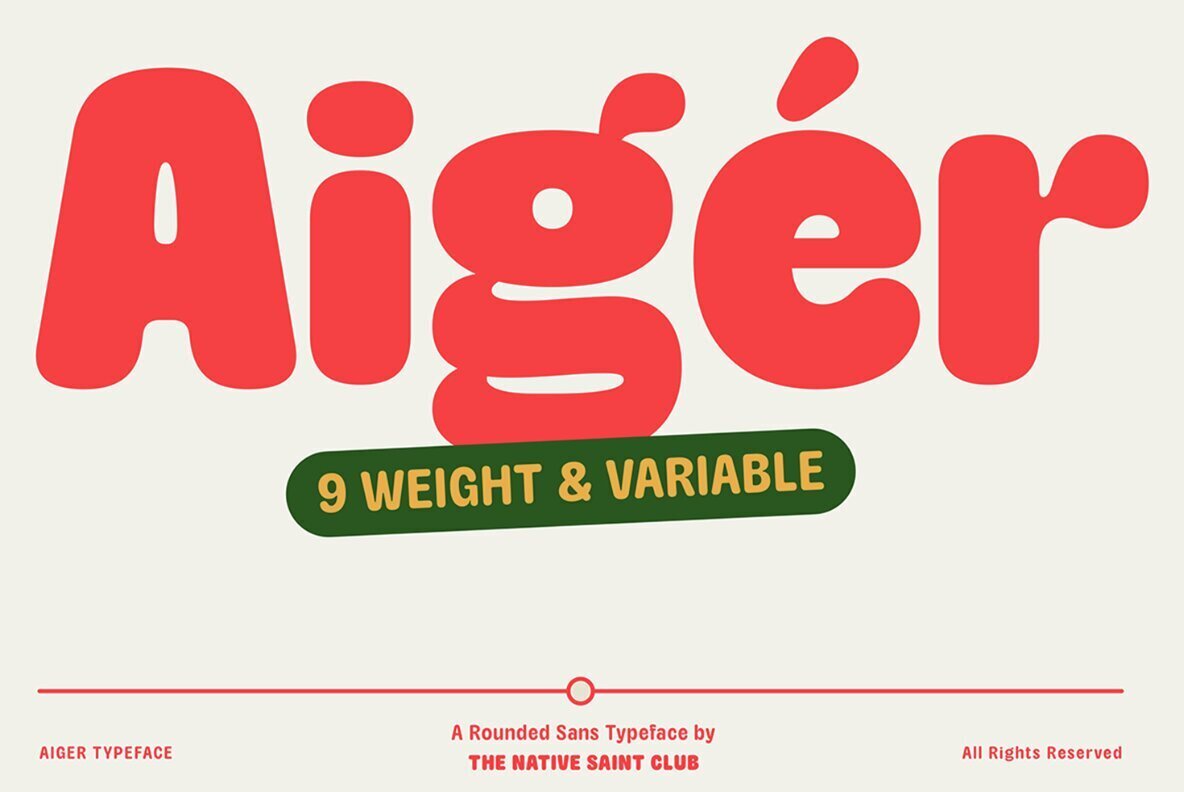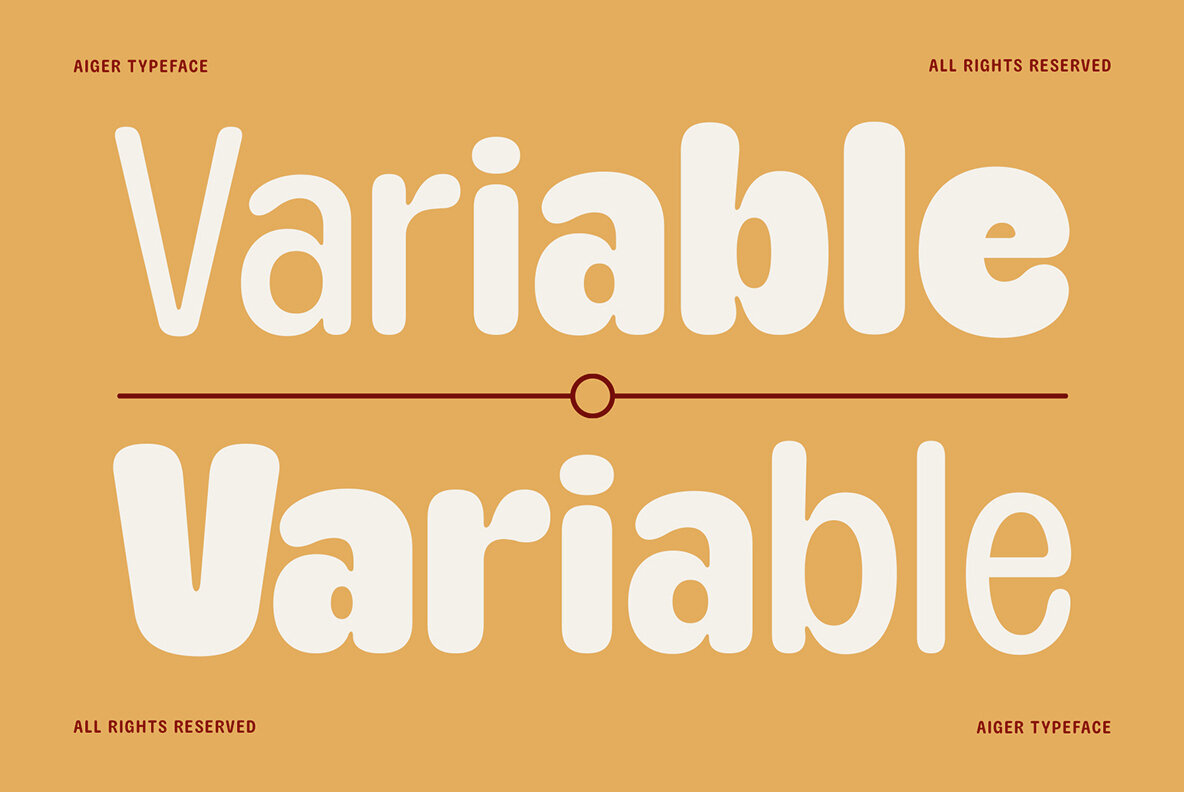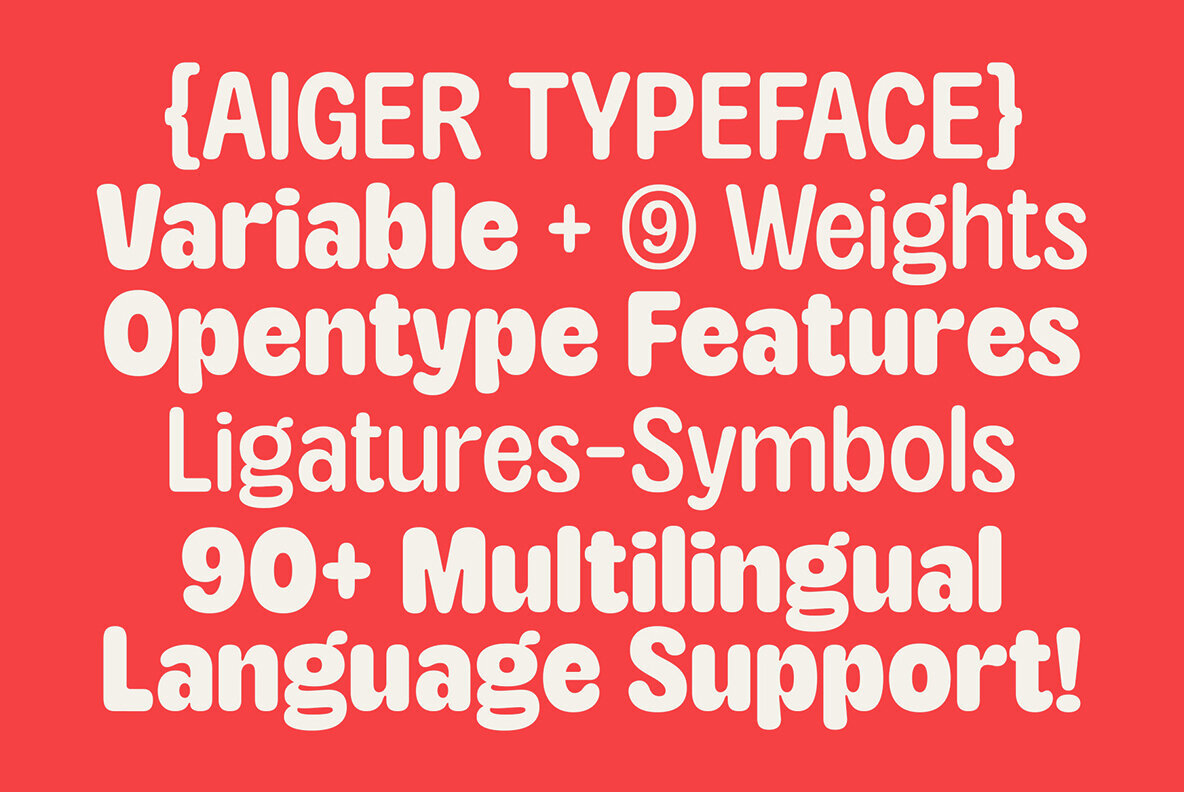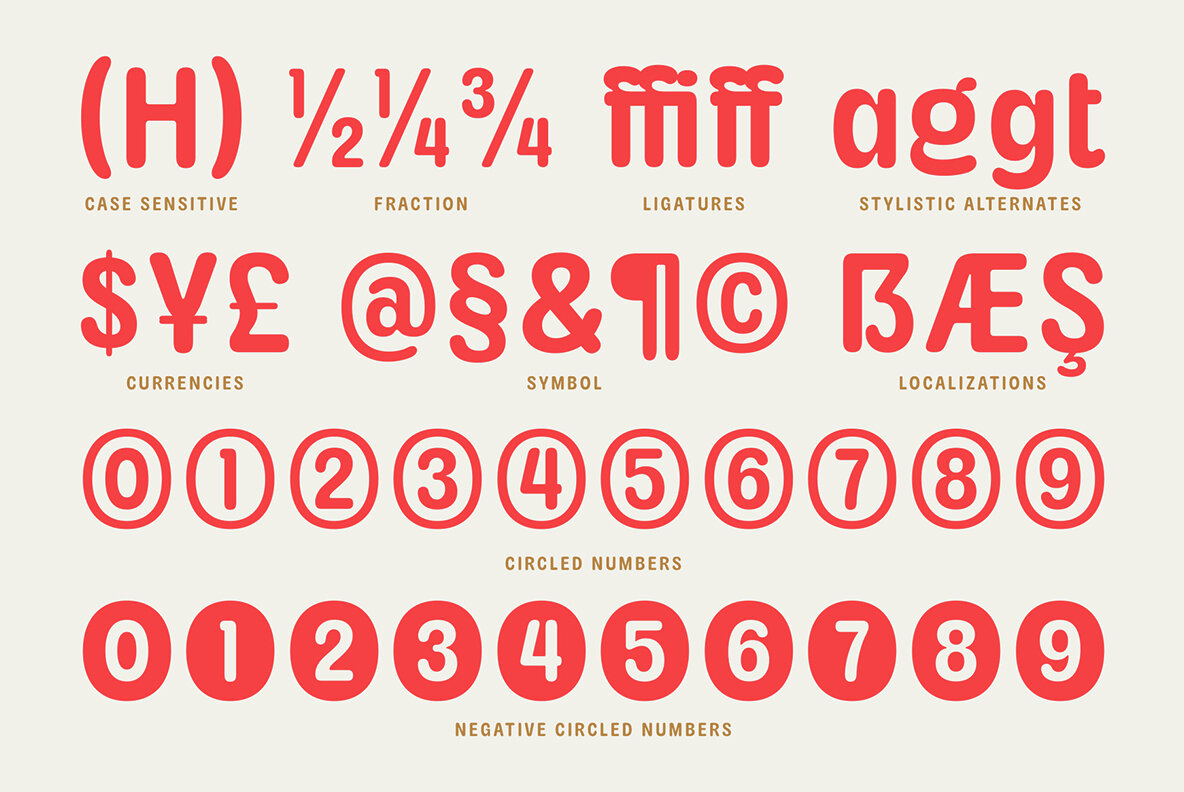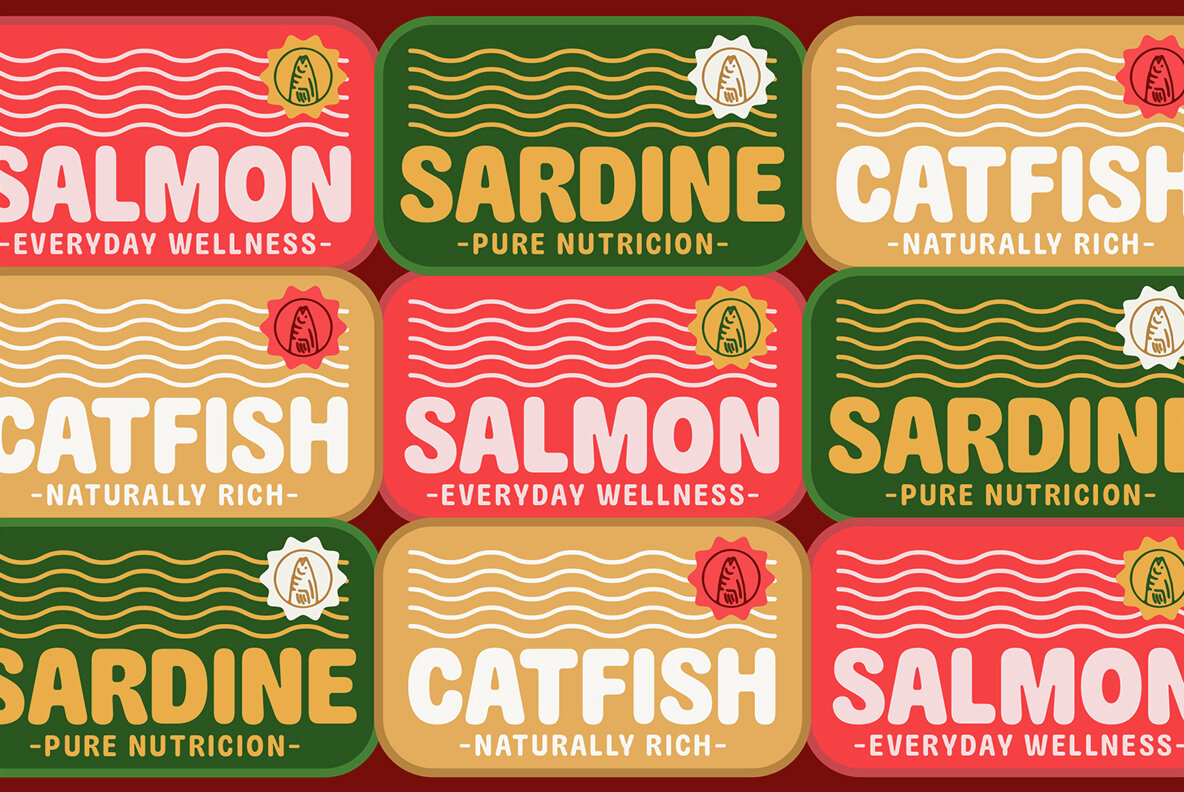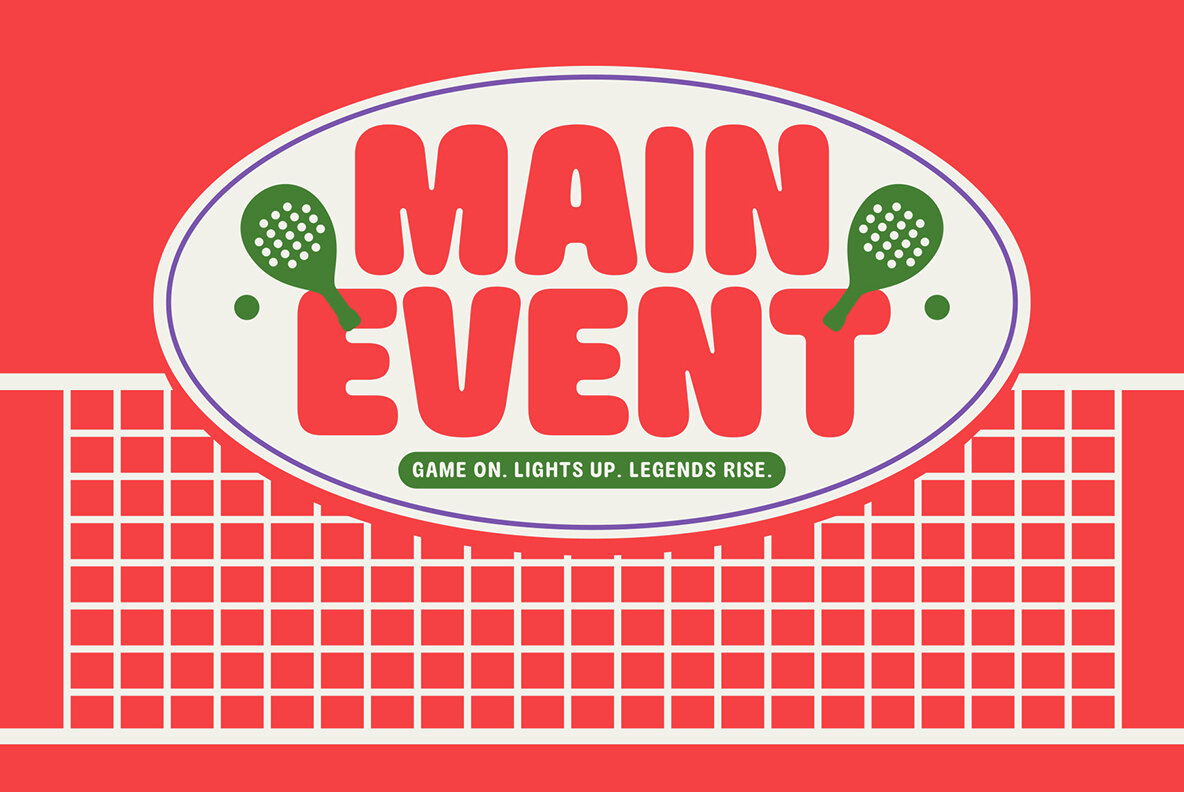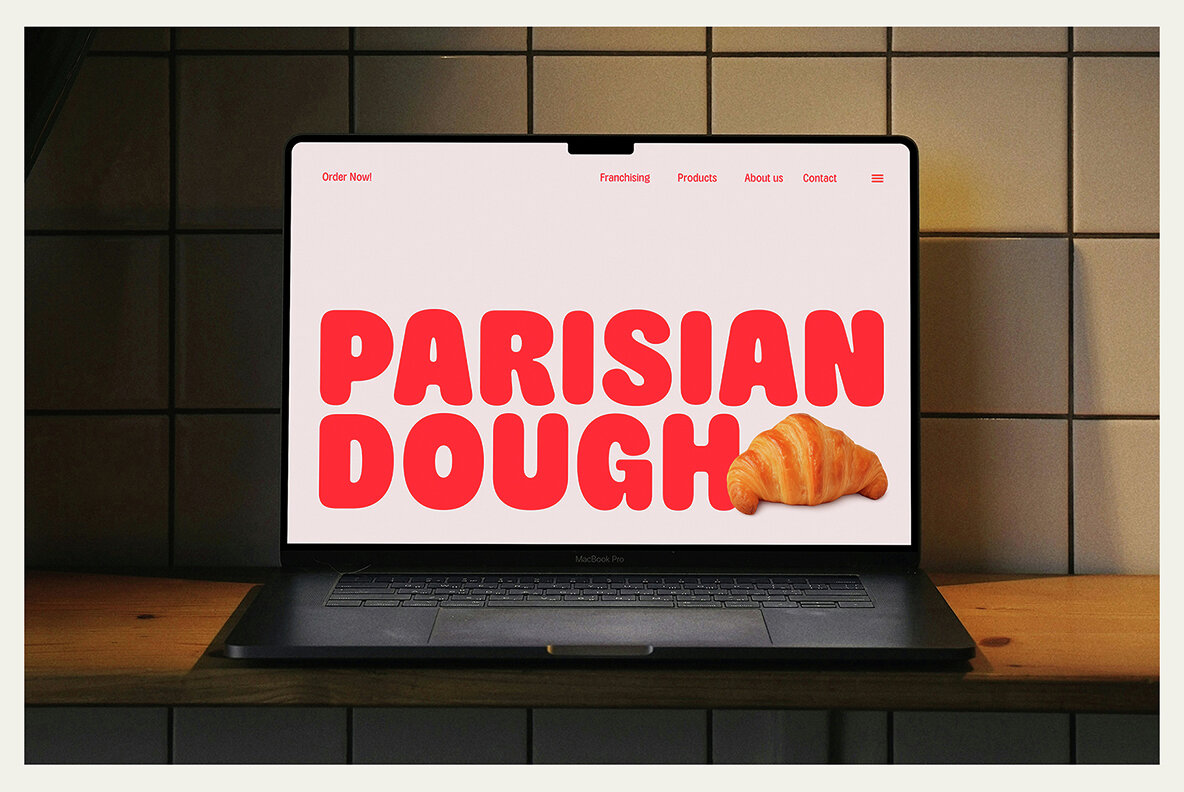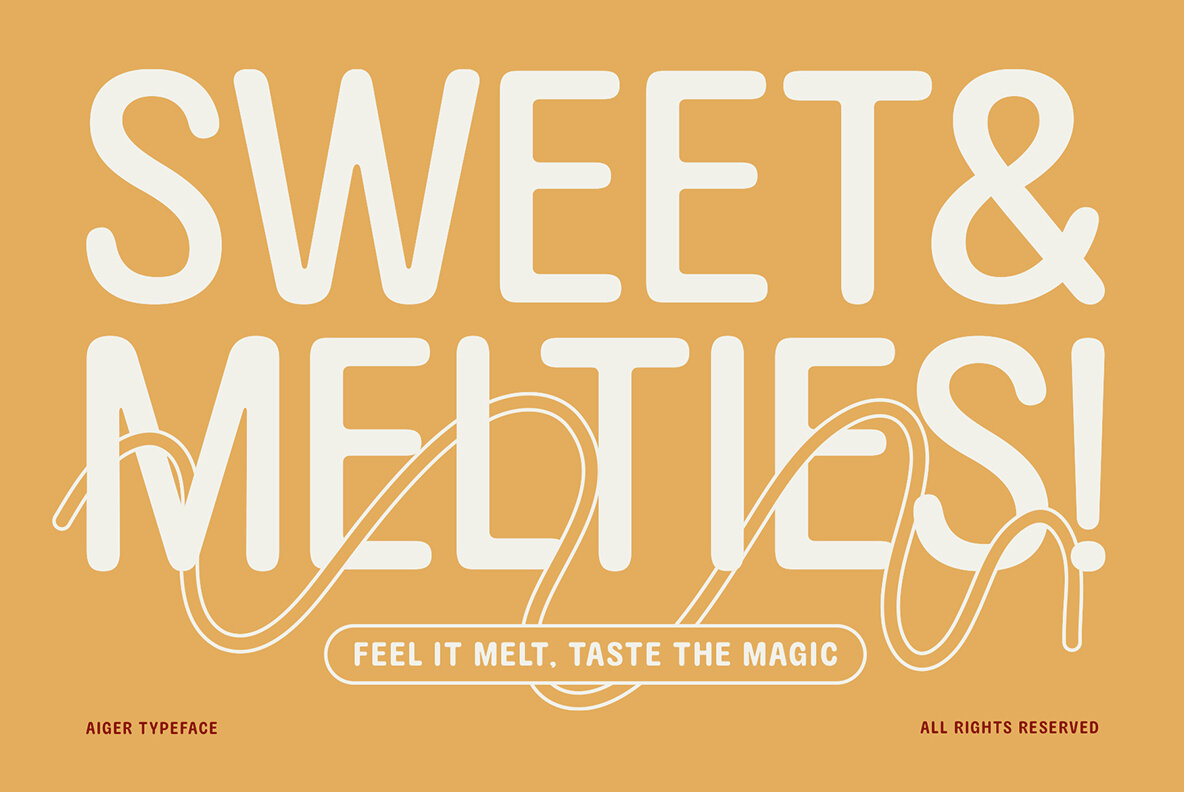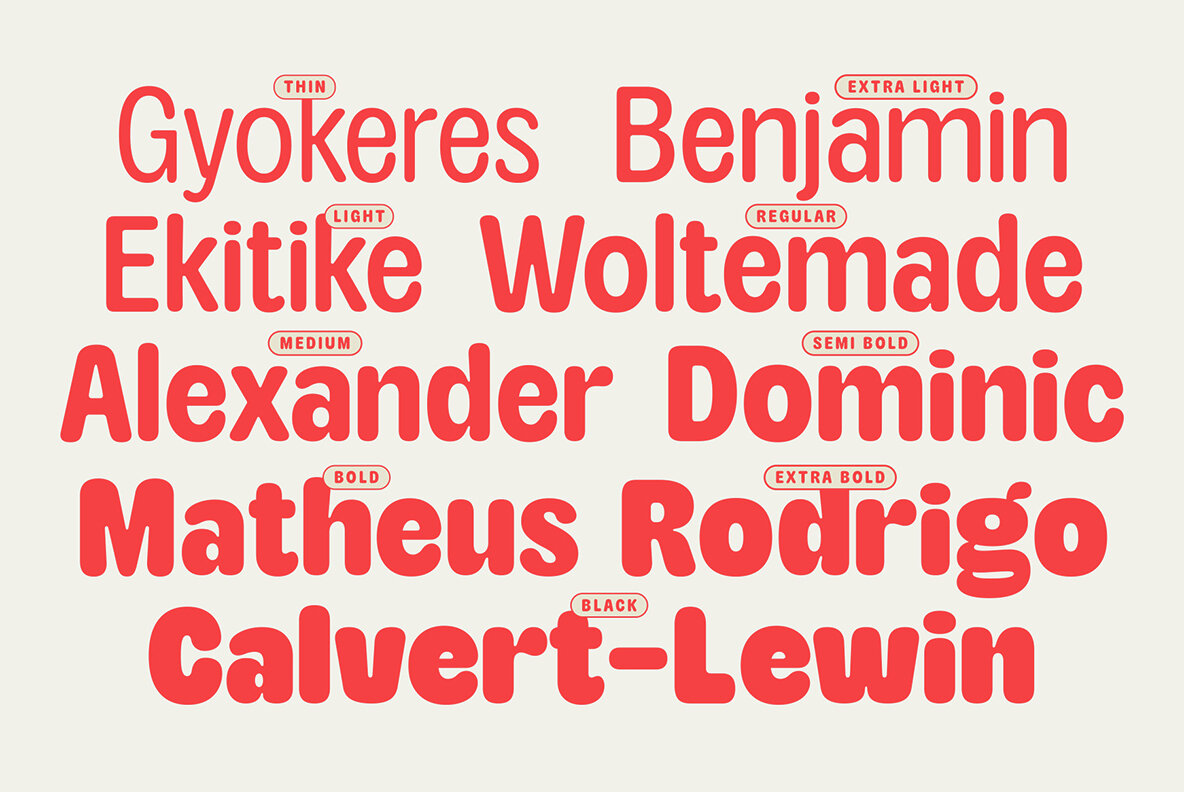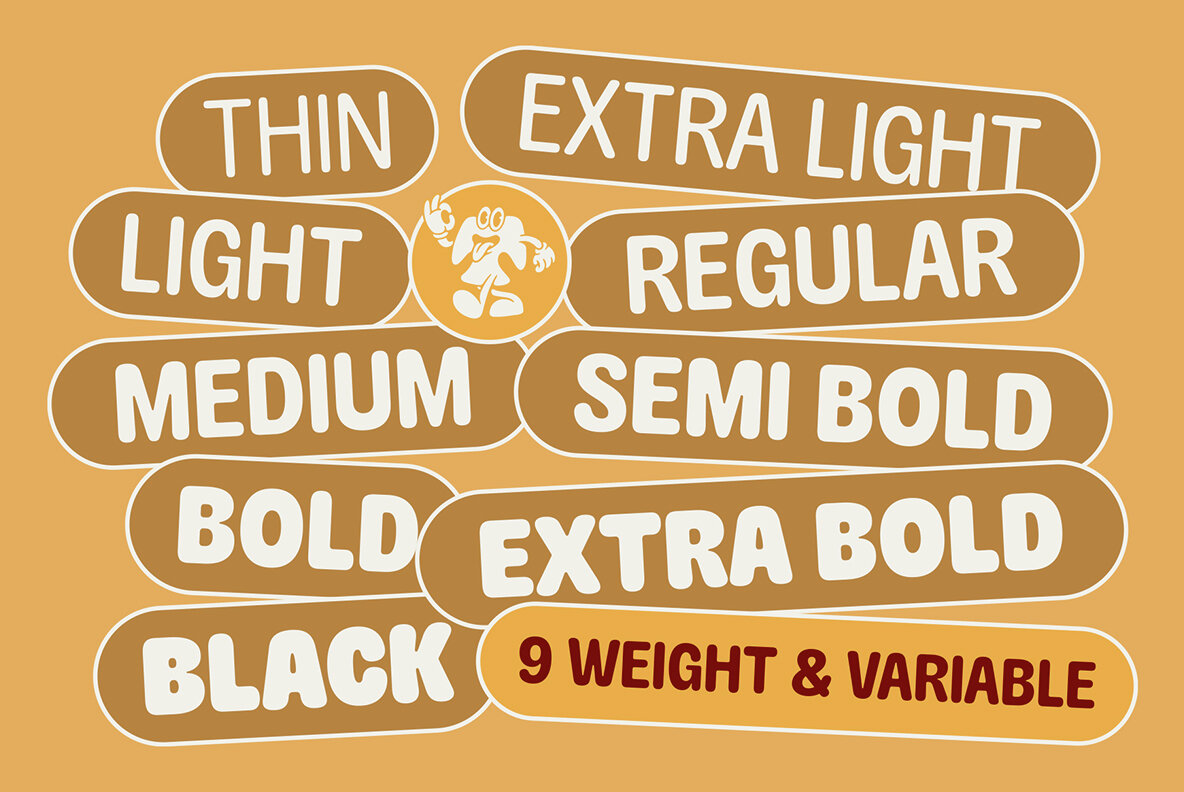
TNSC Aiger Font
TNSC Aiger is designed to infuse your visual projects with an invigorating blend of joy, energy, and warmth. This rounded sans serif typeface is versatile, featuring nine distinct weights ranging from Thin to Black. Additionally, it includes a Variable Font style, providing comprehensive control over attributes such as contrast, weight, and expression. With its array of styles, TNSC Aiger is ideal for a variety of applications, including headlines, packaging, posters, logotypes, and branding projects that aim for a cheerful identity.TNSC Aiger: Rounded Sans Serif Offering Joy and Warmth